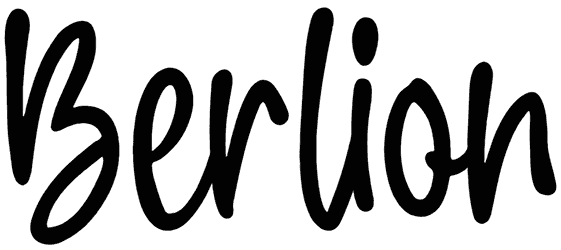
Berlion Font
If creating a sense of personalization, momentum, jauntiness, and obsession is really what you are looking for, then we offer you to utilize a script font such as Berlion in your graphic content. This handwritten font comes with a cursive design that dances along the baseline, thus it easily helps your posters, business cards, book covers, and magazines look more eye-grabbing.